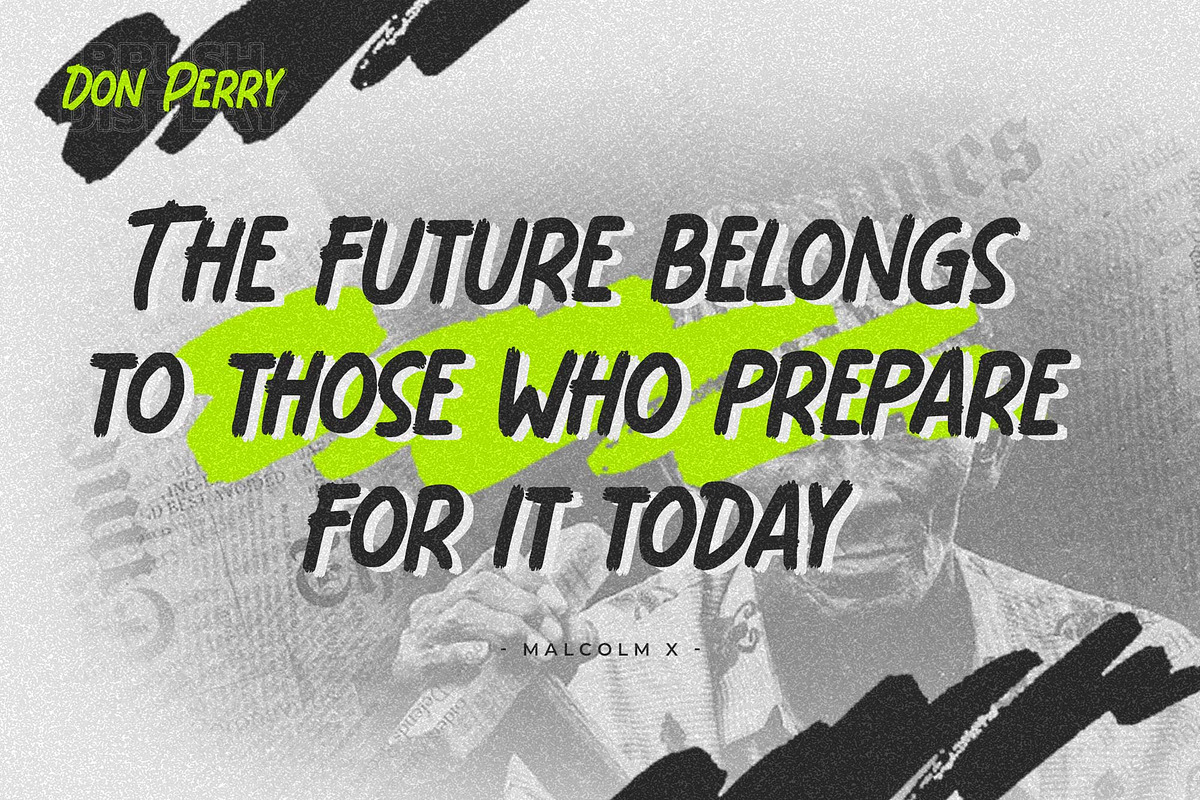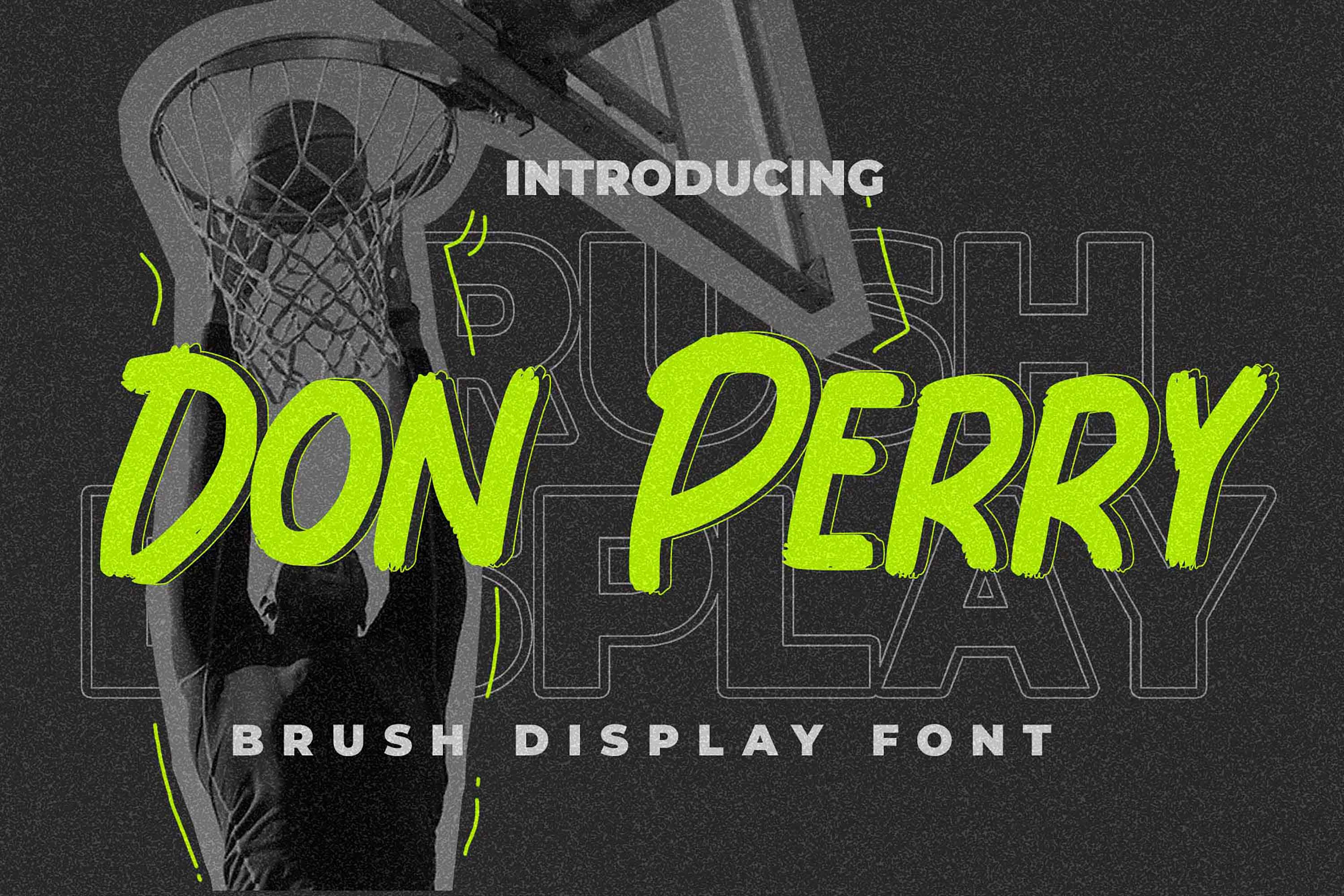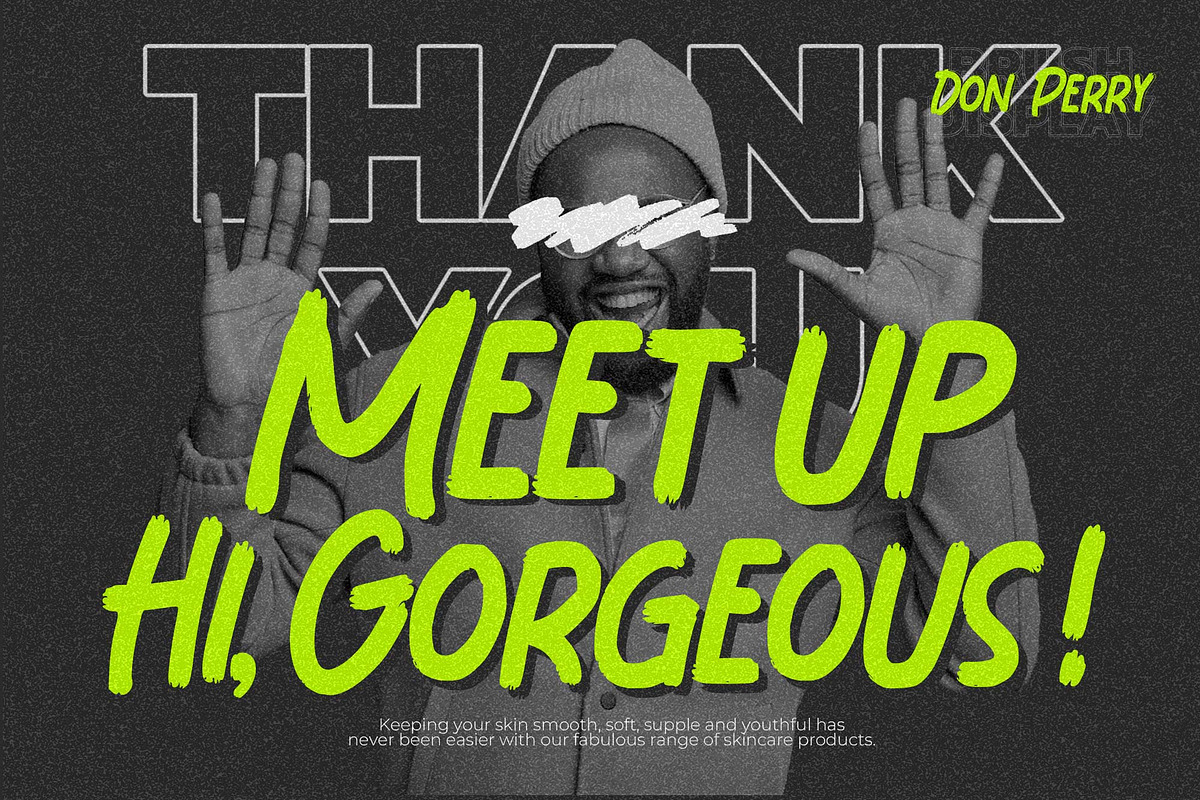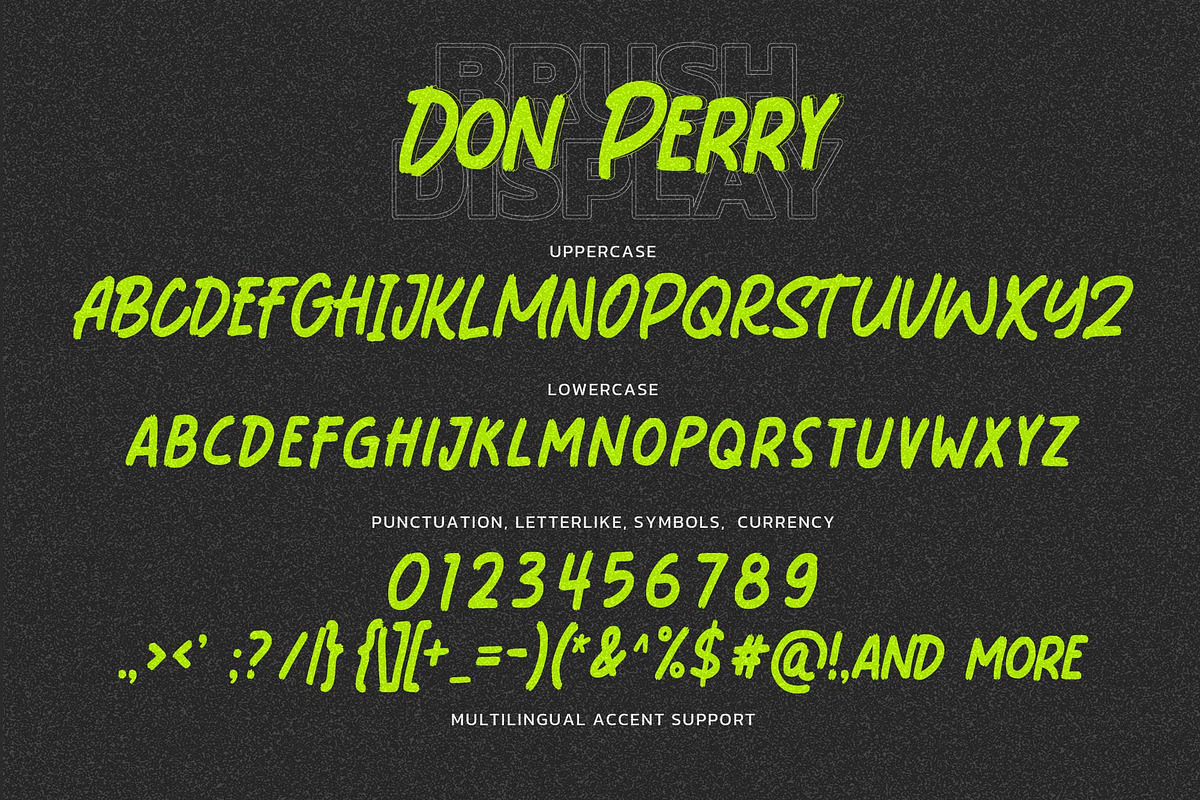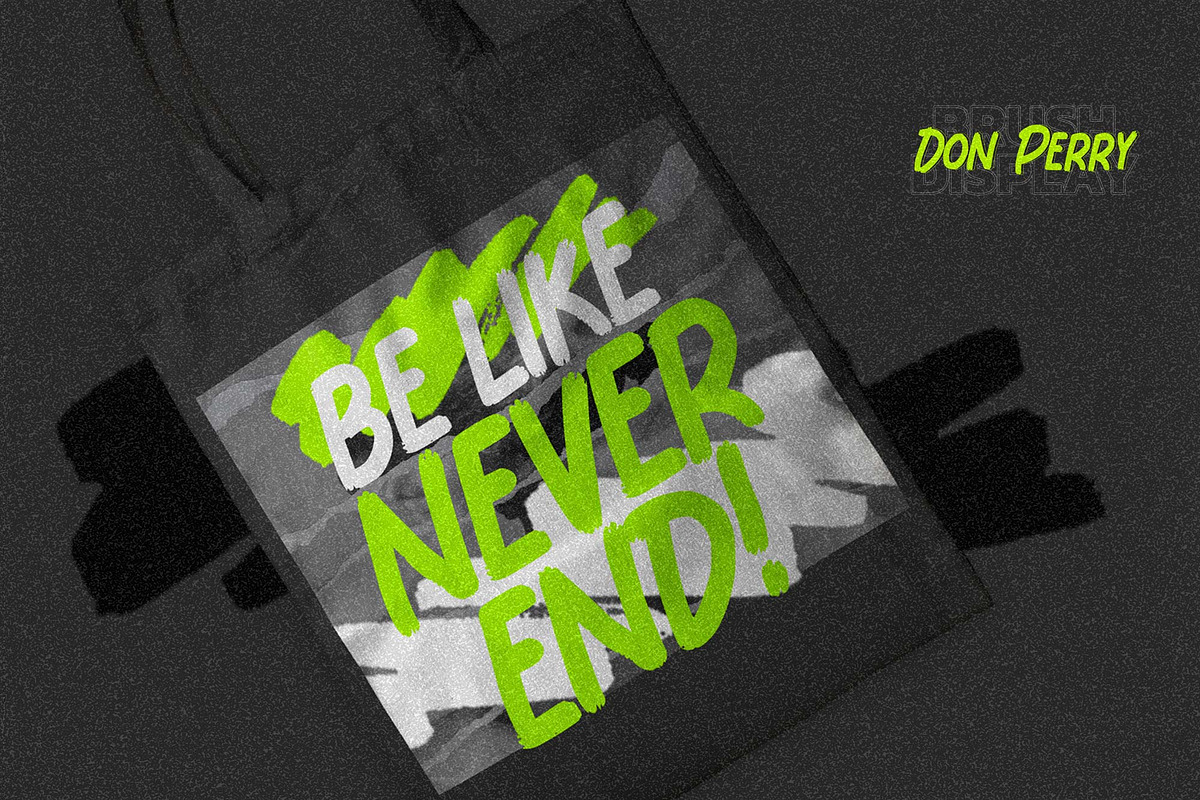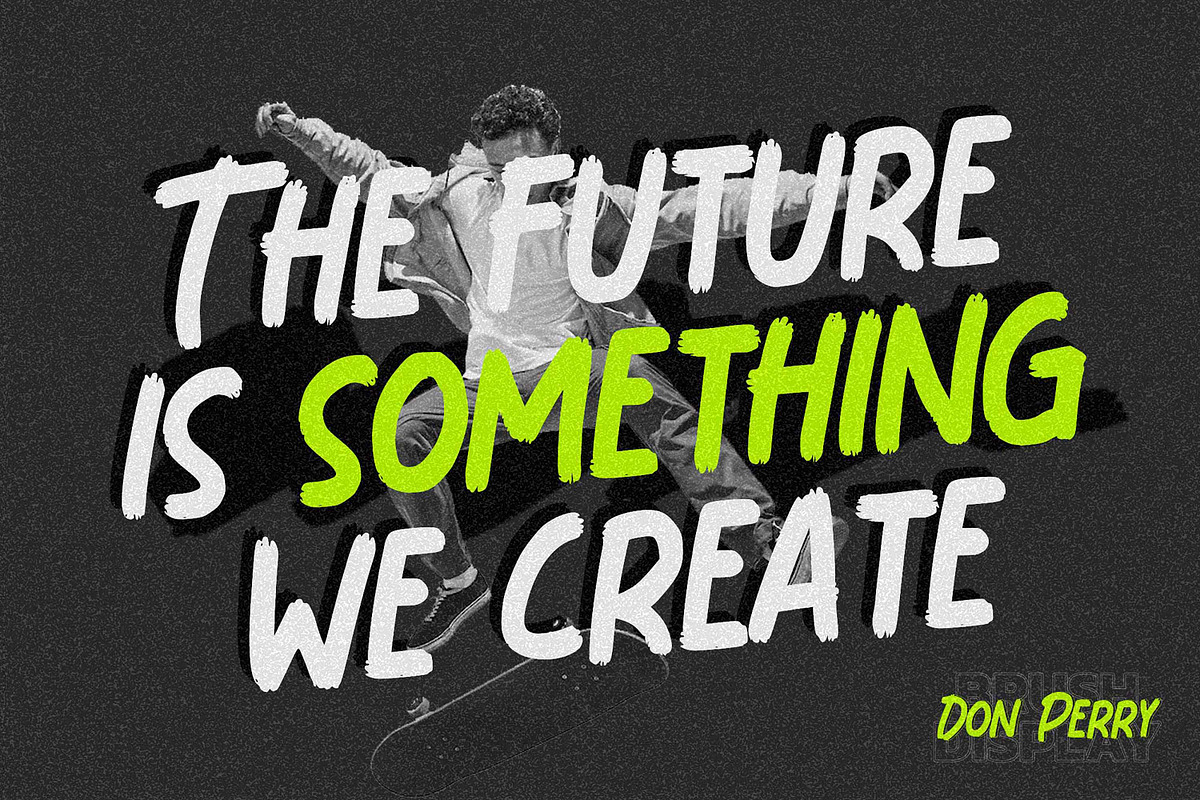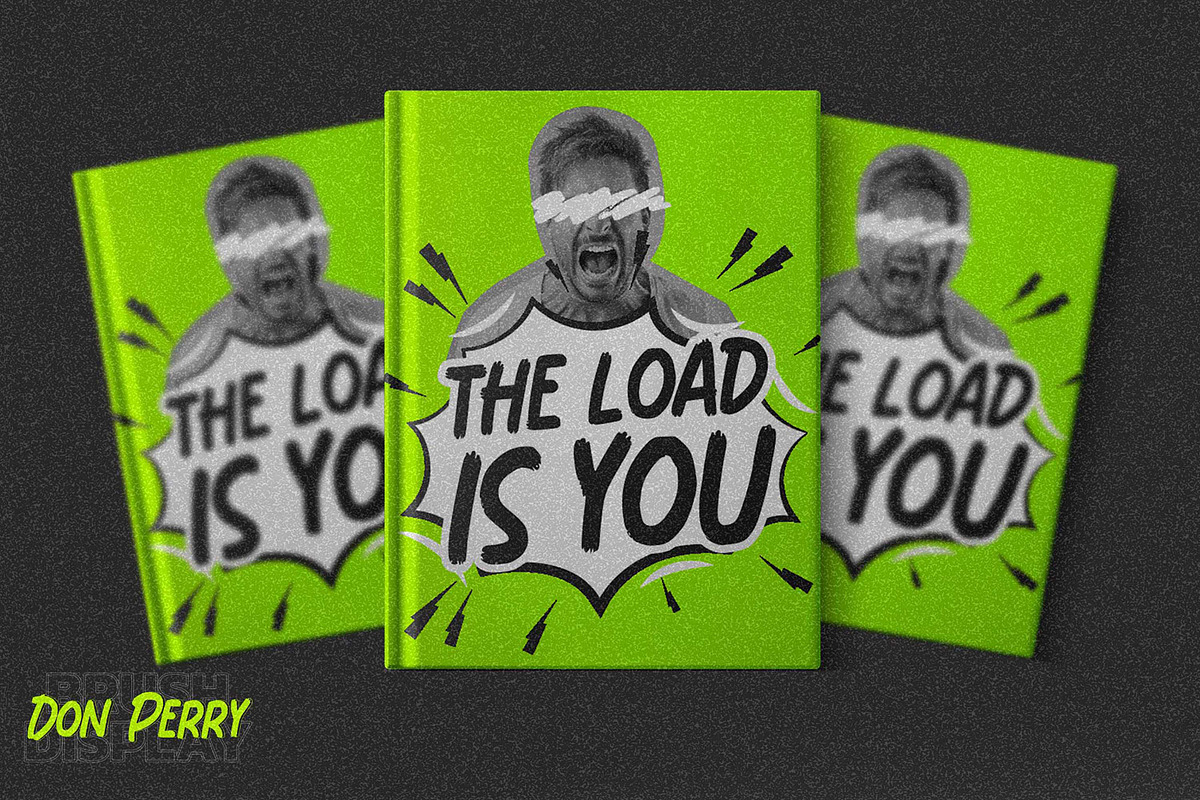
Don Perry - Brush Display Font
Hello Everyone, introduce our new product Font Don Perry This Is Brush Display Font.This is a Textured Natural Style and classy style with a clear style and dramatic movement.
This font Don Perry is great for your next creative project such as logos, printed quotes, invitations, cards, product packaging, headers, Logotype, Letterhead, Poster, Design this font is great for your creative projects such as watermark on photography, and perfect for logos & branding, invitation,advertisements,product designs, stationery, wedding designs,label ,product packaging, special events or anything that need handwritting taste.
That is has charming, authentic and relaxed characteristic more natural look to your text.